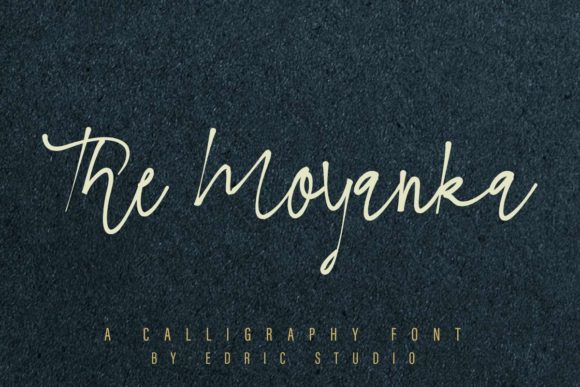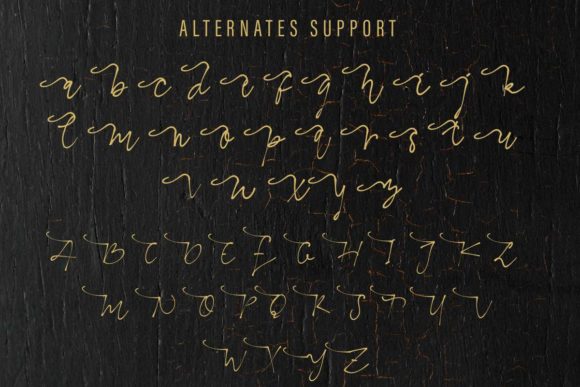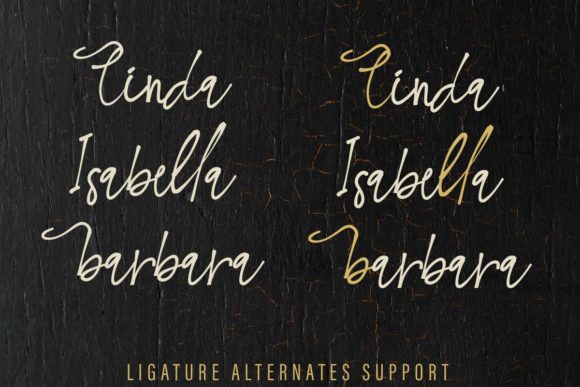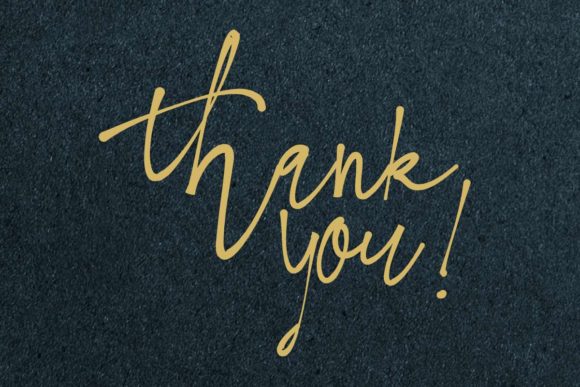
About The Moyanka Font
The Moyanka is a stylish and unique handwritten font. This font is PUA encoded which means you can access all of the glyphs and swashes with ease! It features a varying baseline, smooth lines, gorgeous glyphs and stunning alternates. Fall in love with this font’s incredibly versatile style and use it to create gorgeous wedding invitations, beautiful stationary art, eye-catching social media posts, and much more!